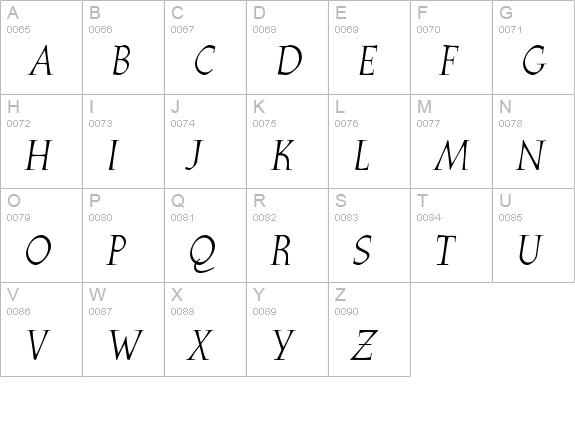
Athenaeum Std Italic is a distinctive, italic variant in the Athenaeum typeface family \xE2\x80\x94 well suited to design and typography projects.
Athenaeum Std Italic font exudes elegance and sophistication with its graceful, slanted letterforms. The delicate curves and subtle contrasts of this typeface make it ideal for adding a touch of refinement to any design project. Whether used for headings, quotes, or body text, Athenaeum Std Italic brings a sense of style and sophistication to your work. What's even better is that Athenaeum Std Italic font is available for free download at FontsMarket.com! You can easily access this beautiful typeface and elevate your designs without any cost. Don't miss out on the opportunity to enhance your projects with the timeless beauty of Athenaeum Std Italic font. Download it today and start creating stunning visuals that capture attention and leave a lasting impression.